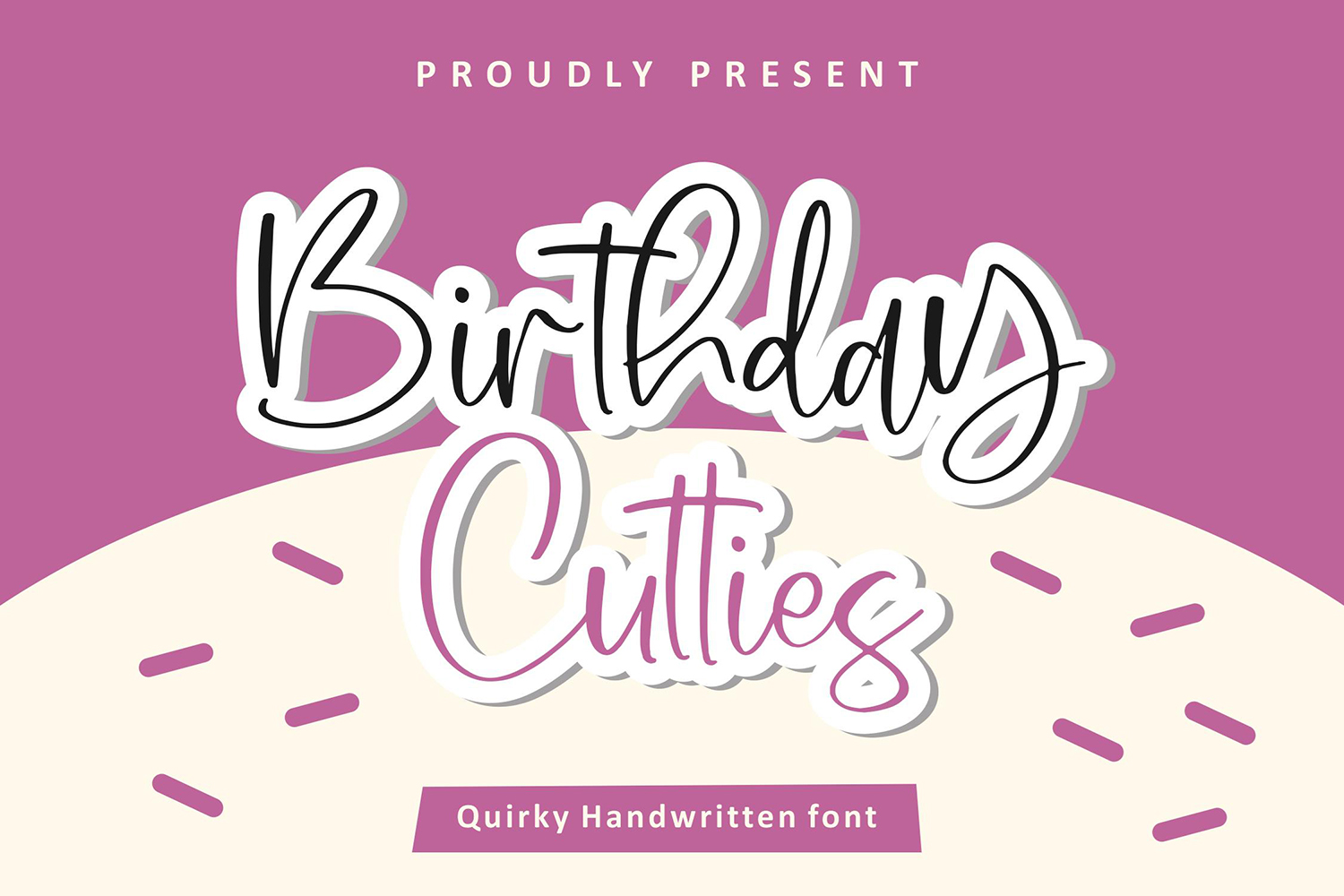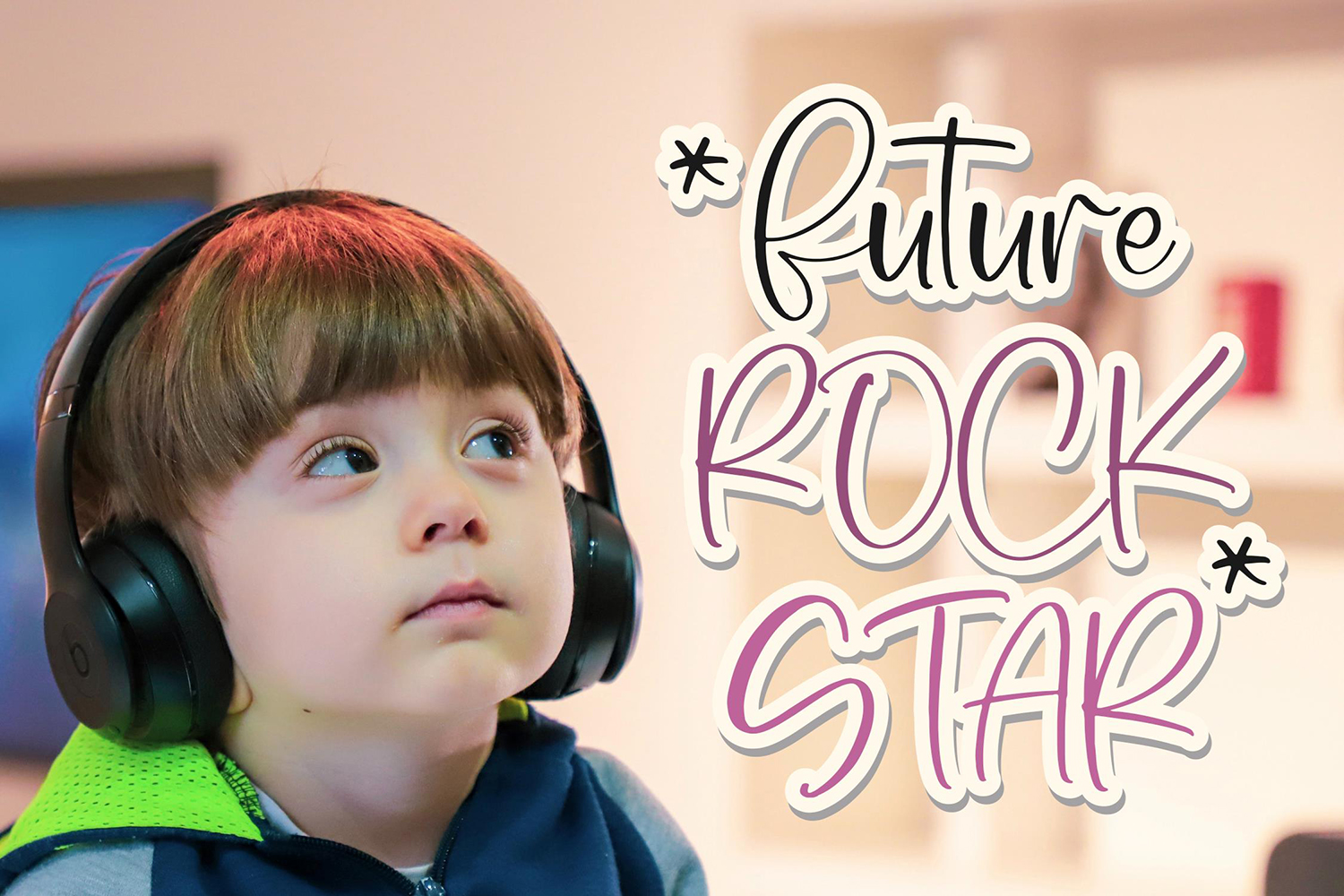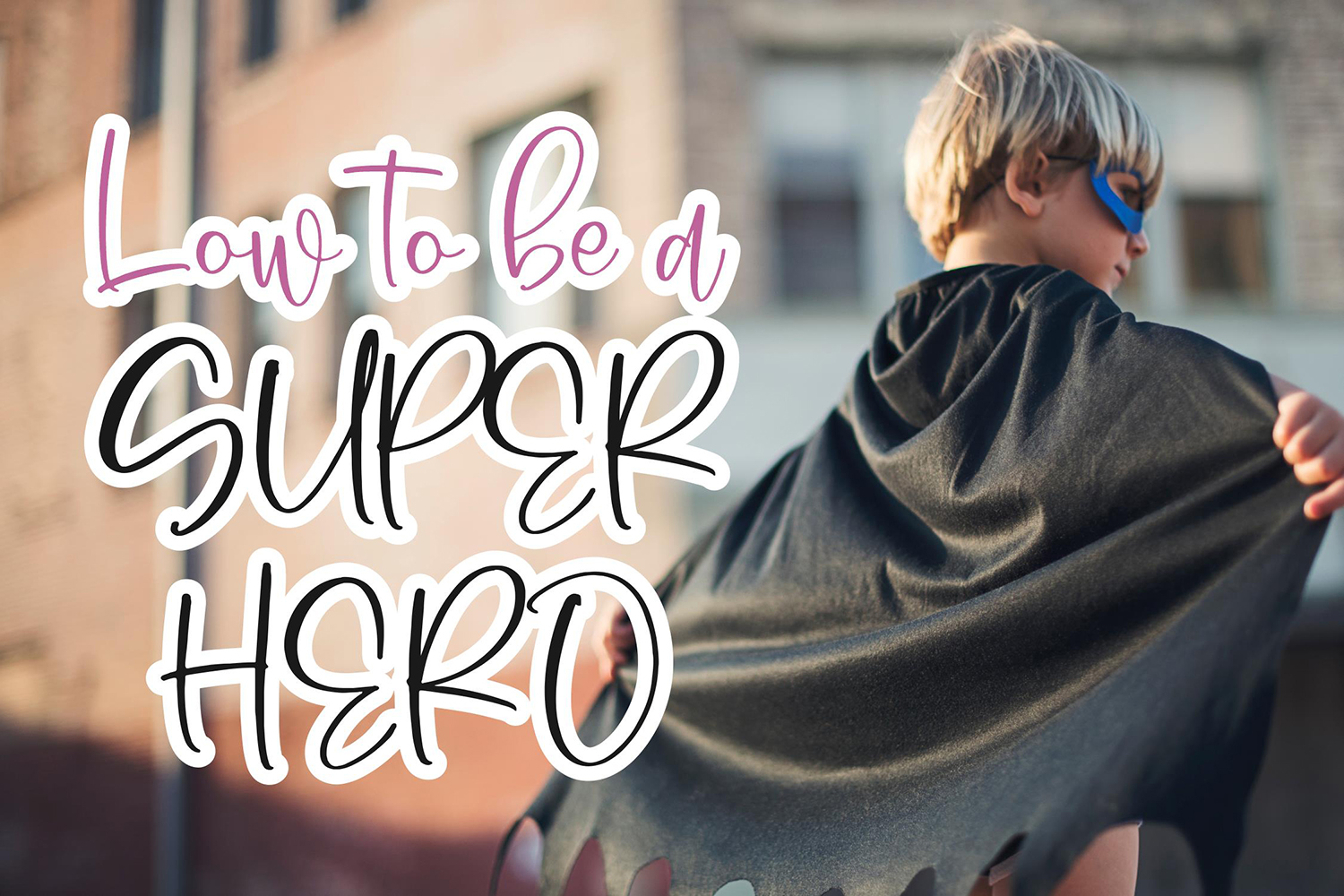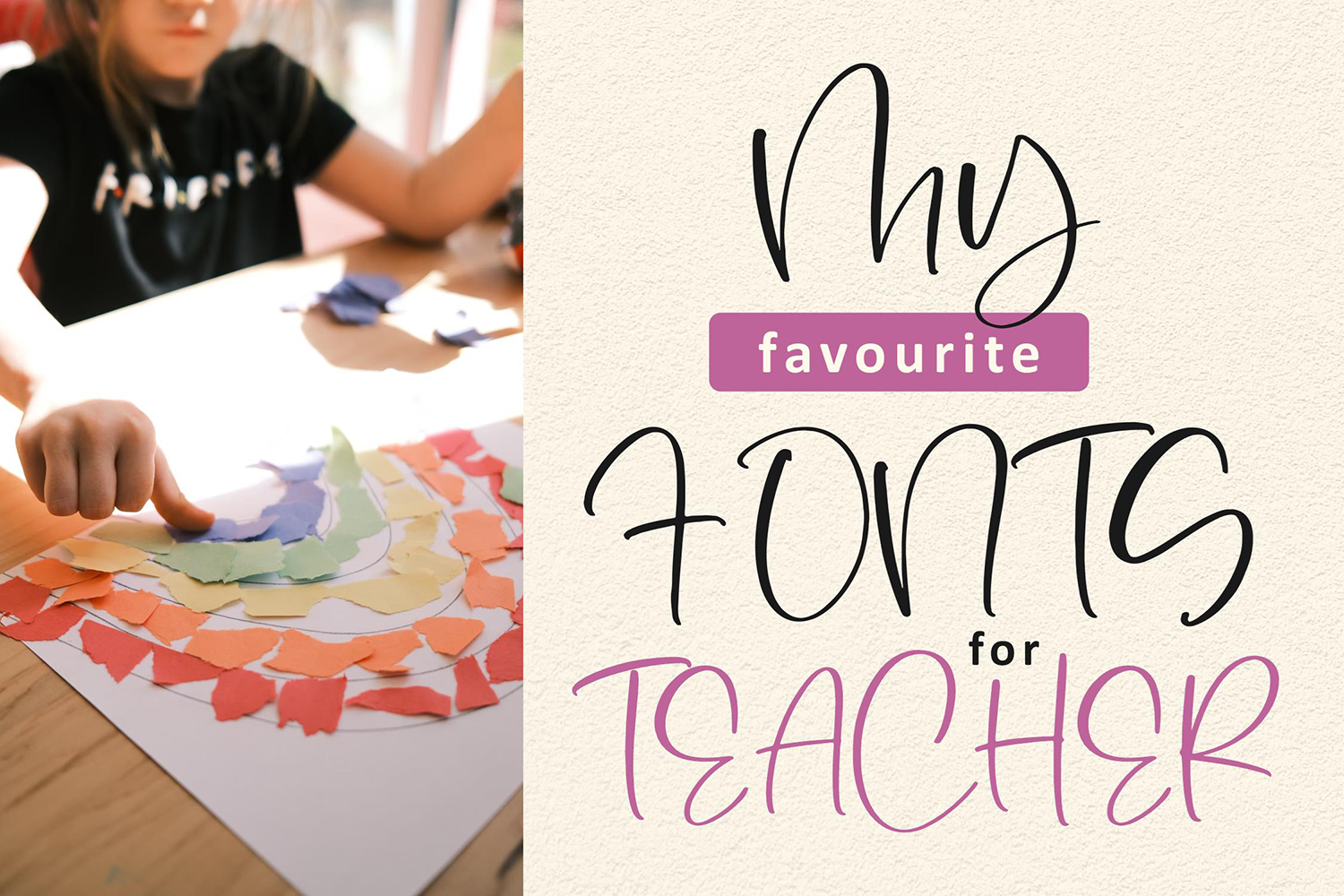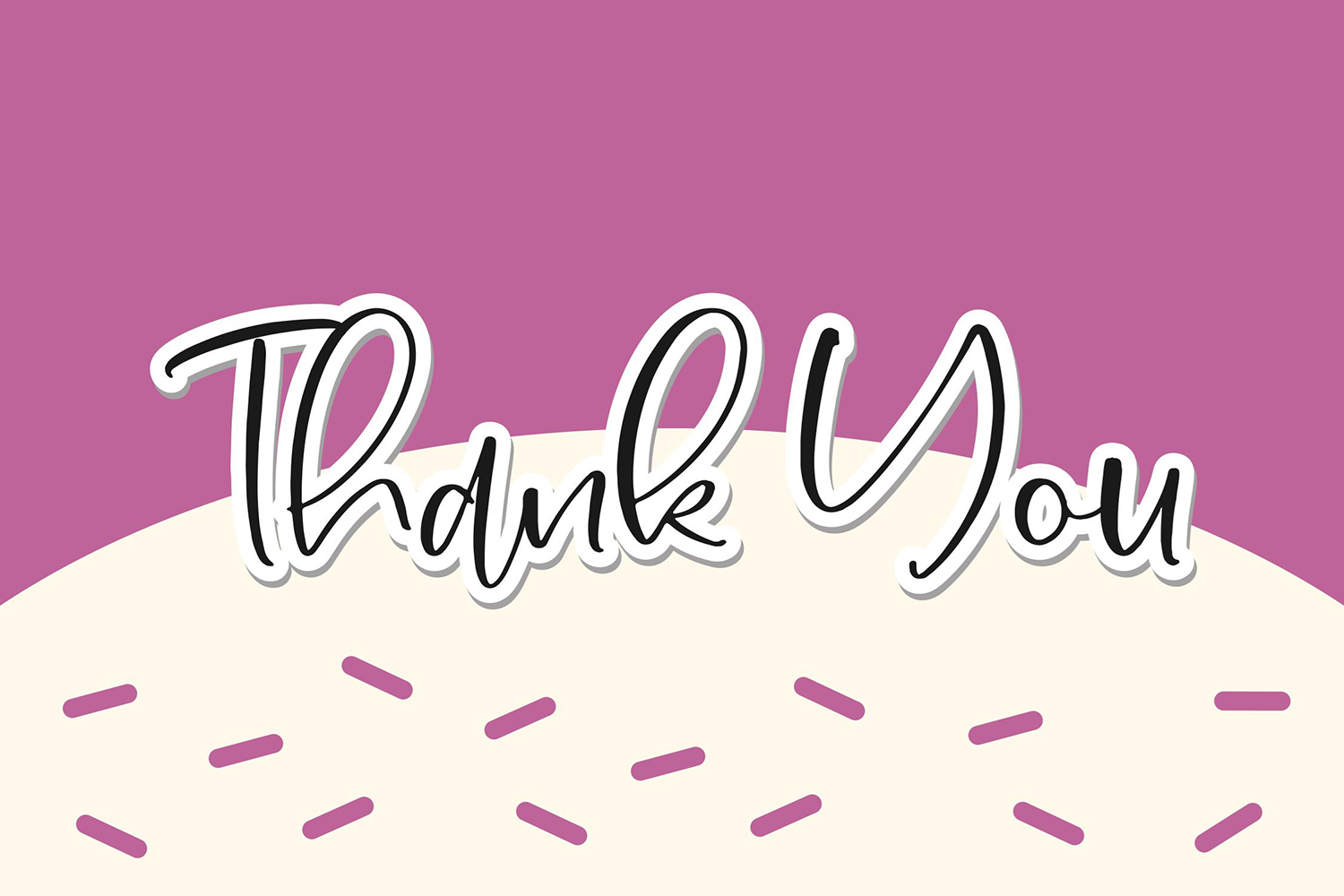
Birthday Cutties Free Font
Birthday Cutties Free Font is a playful and whimsical way to add a touch of personality to any design project. The unique, hand-drawn style of the letters evokes feelings of nostalgia and warmth as if the words were written by a dear friend. The cute illustrations of birthday cuties imbue the design with a sense of joy and celebration, making it perfect for birthday cards, invitations, and other festive designs. The font is playful and fun, it’s perfect for anyone looking to add a touch of quirkiness and charm to their designs.